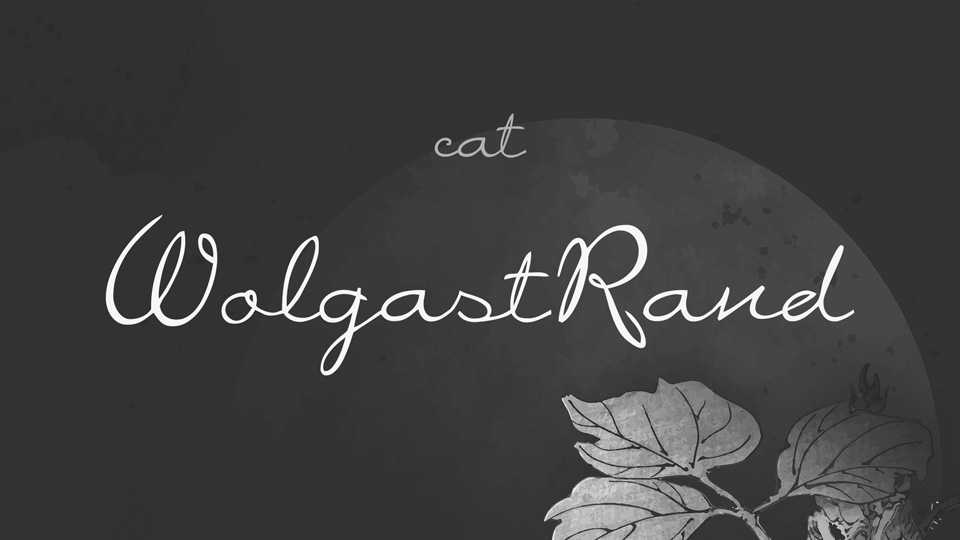
Download WolgastRand font, a beautiful handwritten script with a natural flow. It’s casual style will be perfect for unformal designs, cards, letters, invitations, watermarks and other projects, that needs a personal touch.